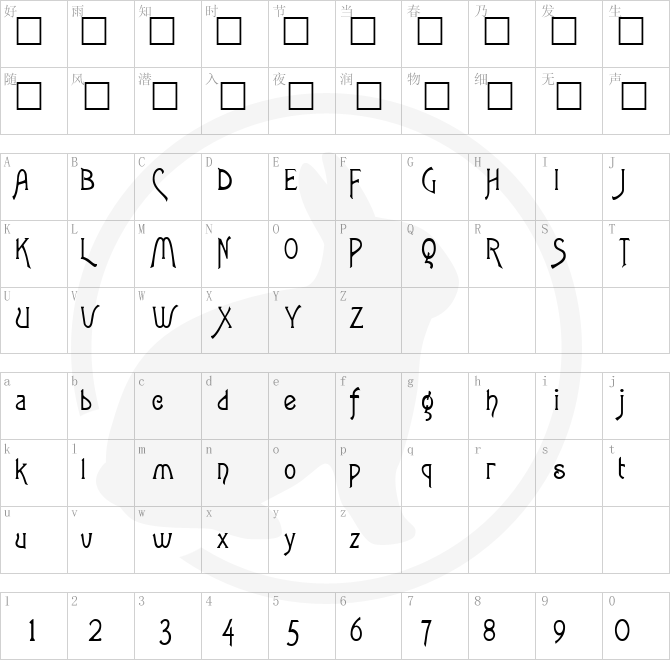
- Font Name:QTLautrecType
QTLautrecType-Regular.ttf is a very beautiful artistic font, QTLautrecType-Regular.ttf is widely used in the design and printing of various books and pictures,QTLautrecType-Regular.ttf has a strong visual impact,QTLautrecType-Regular.ttf is a commonly used font in newspapers, magazines and books, and is used in posters, e-commerce Poster design, store design, logo design, font design and other fields.QTLautrecType-Regular.